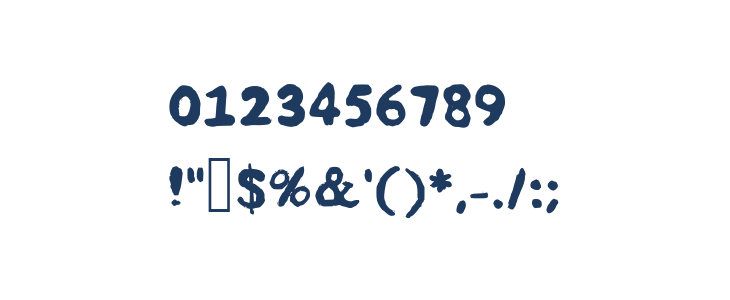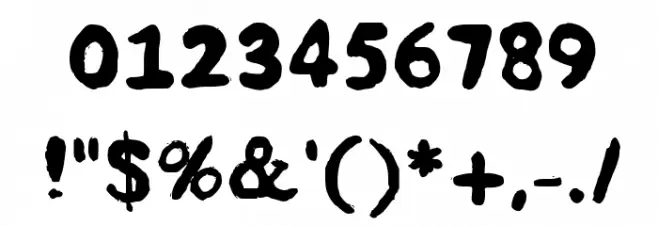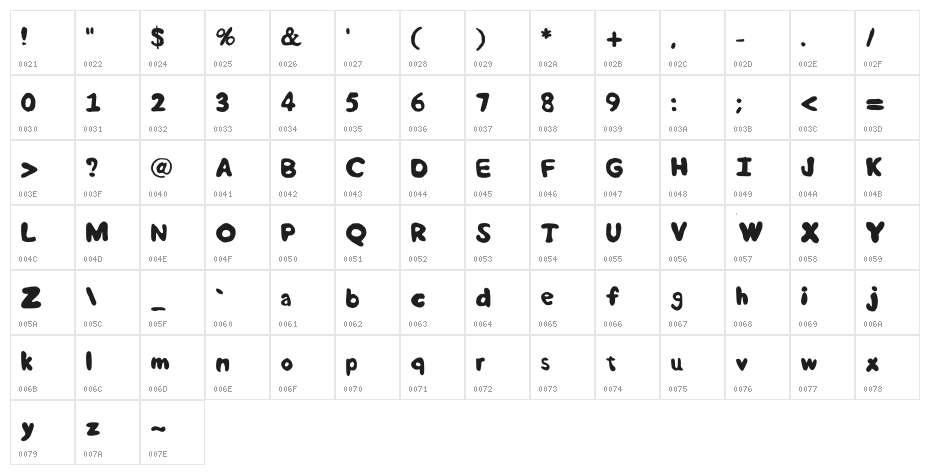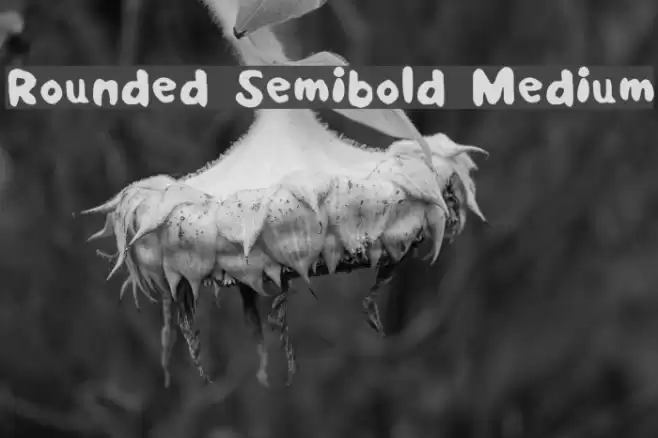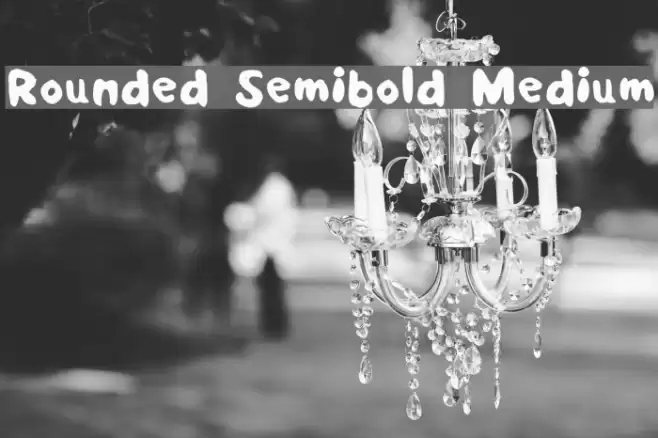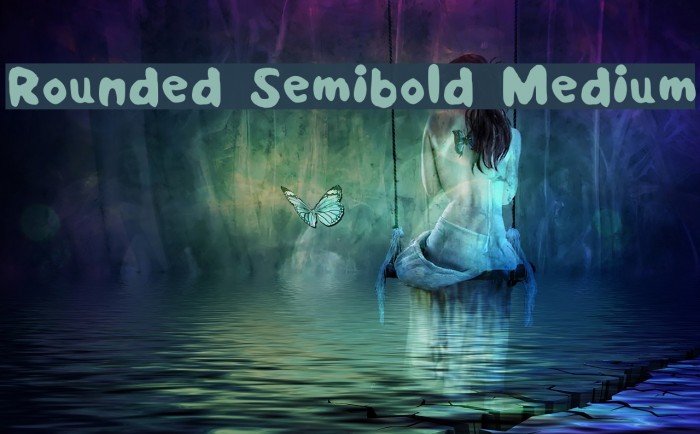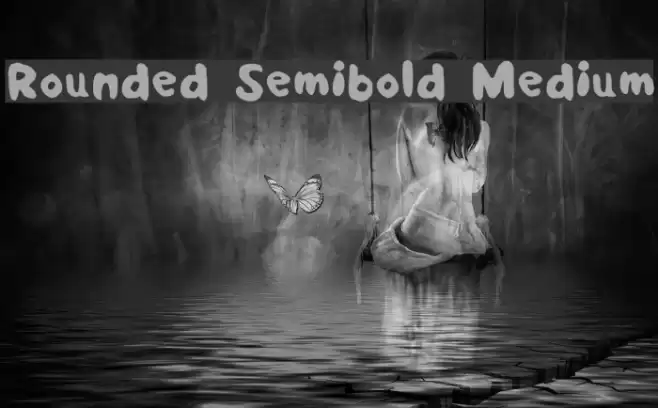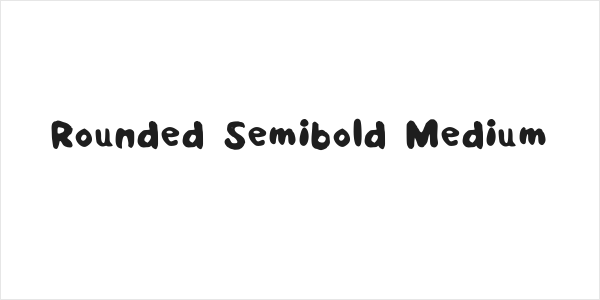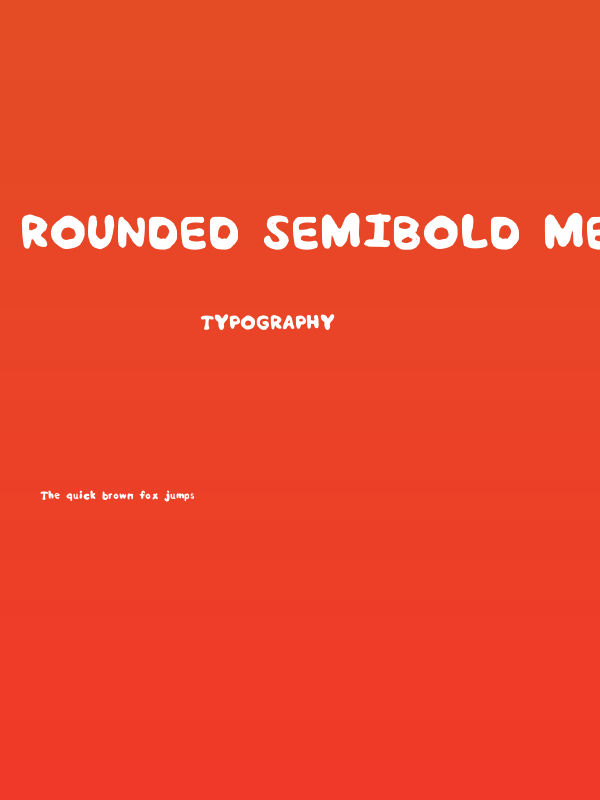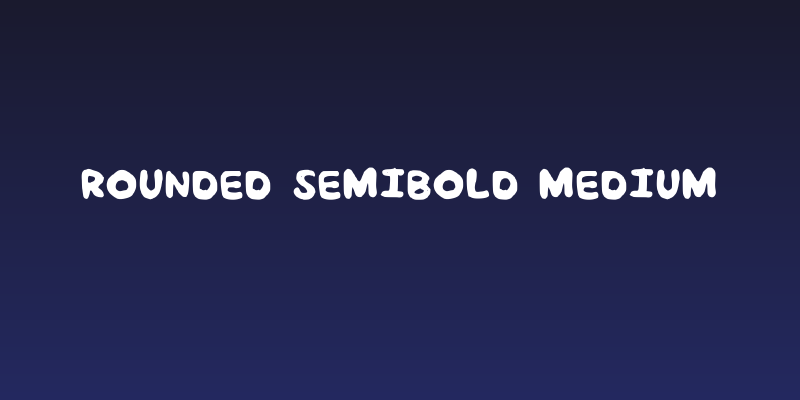
Rounded Semibold Medium Font
Rounded Semibold Medium Description
This font features a playful and bold design with rounded edges, giving it a friendly and approachable appearance. The characters are thick and substantial, providing a strong presence on the page. The rounded terminals and consistent stroke width contribute to its cohesive look. It maintains a uniform weight throughout, making it suitable for various design purposes. The font's style is modern yet retains a touch of whimsy, making it versatile for both digital and print media. Its clear legibility and distinctive character shapes make it ideal for catching attention.
| Proposed Projects | Ideal for children's books, playful branding, posters, and social media graphics. |